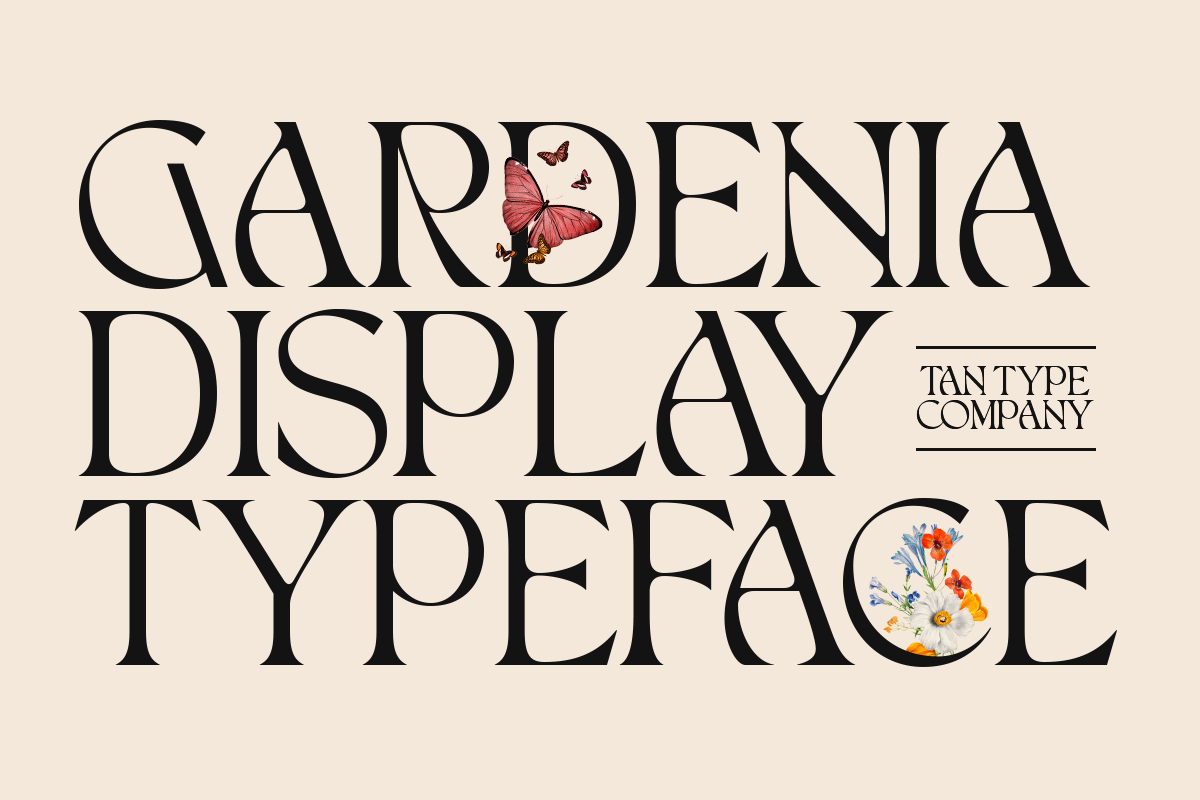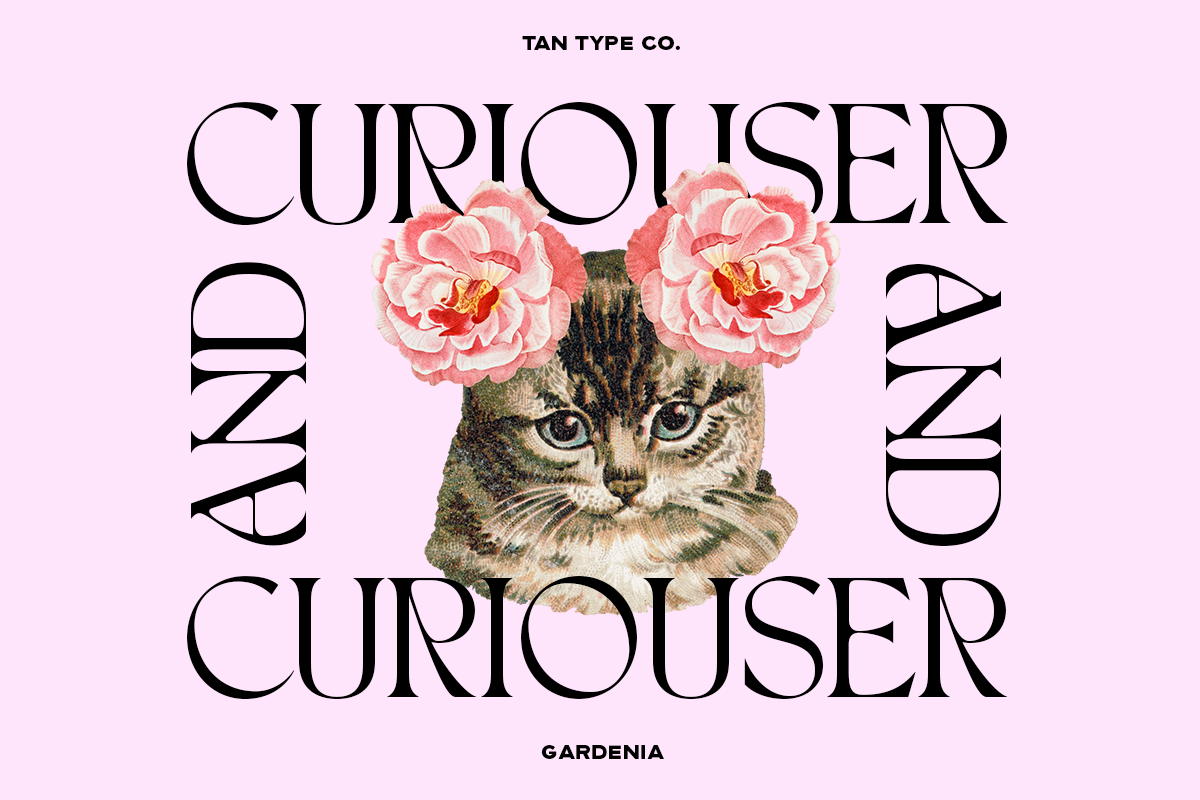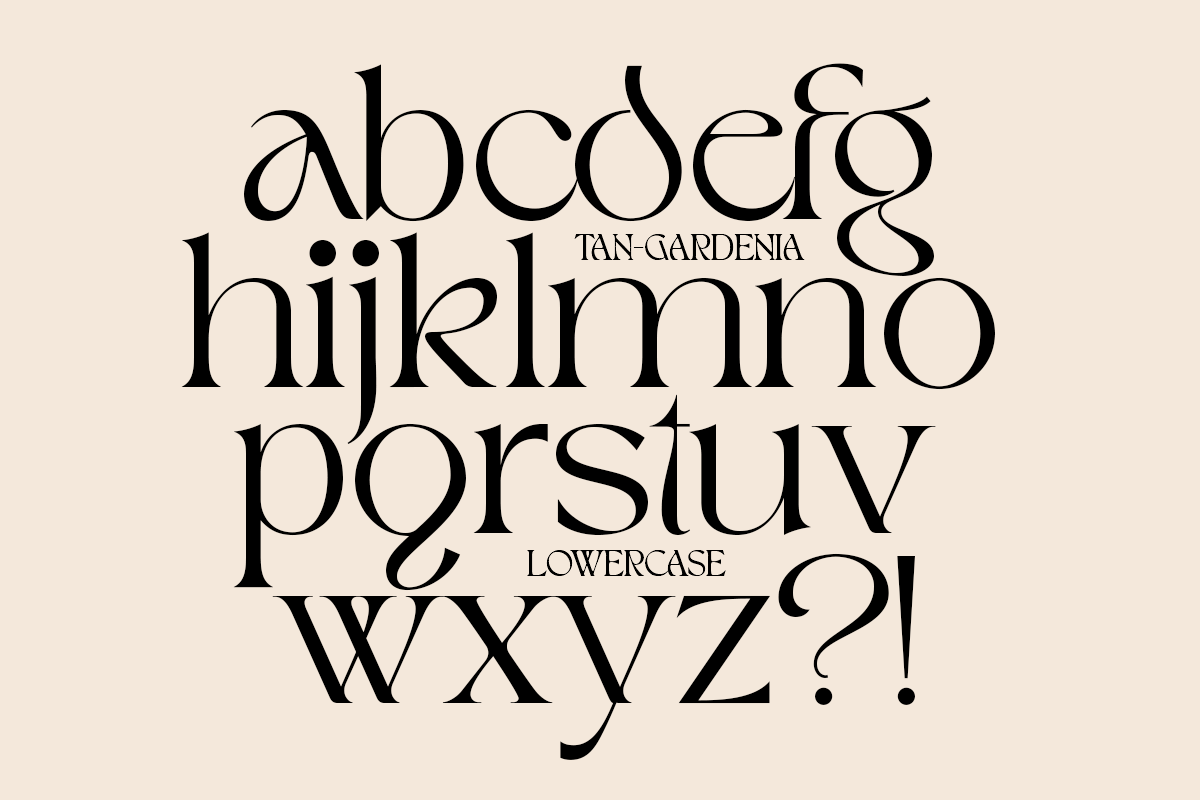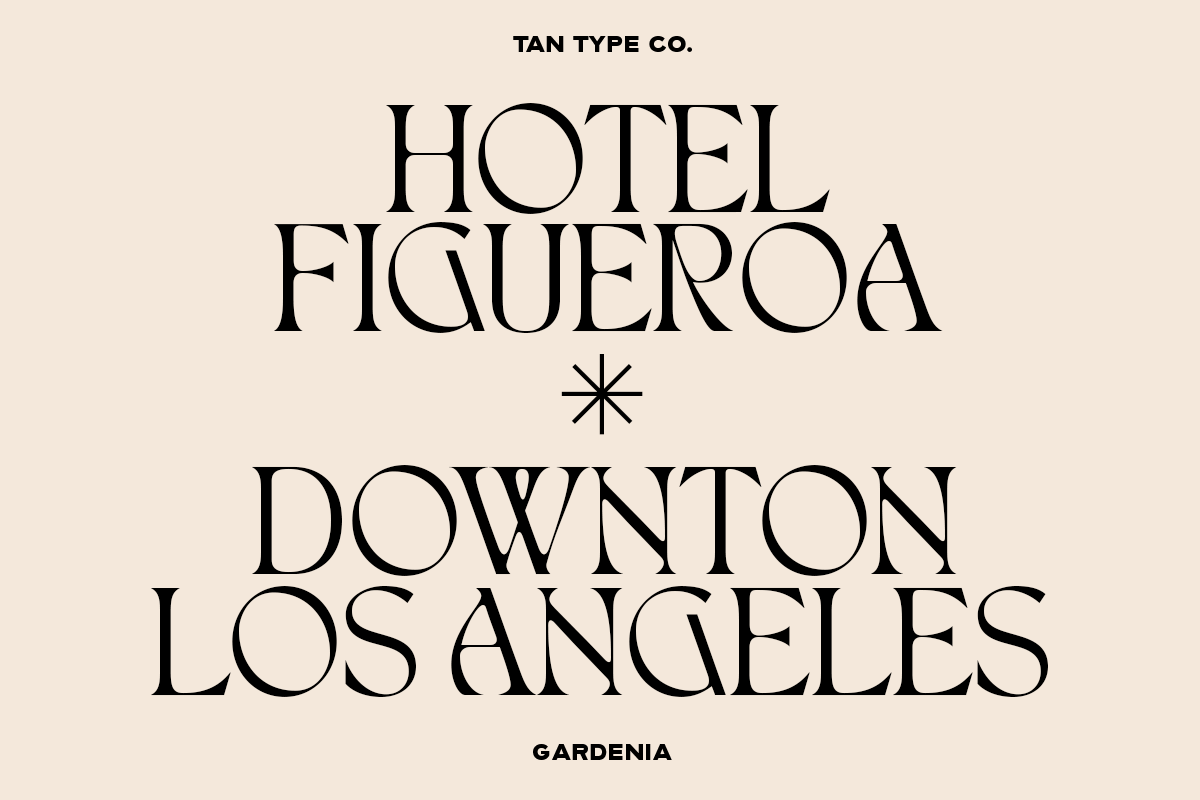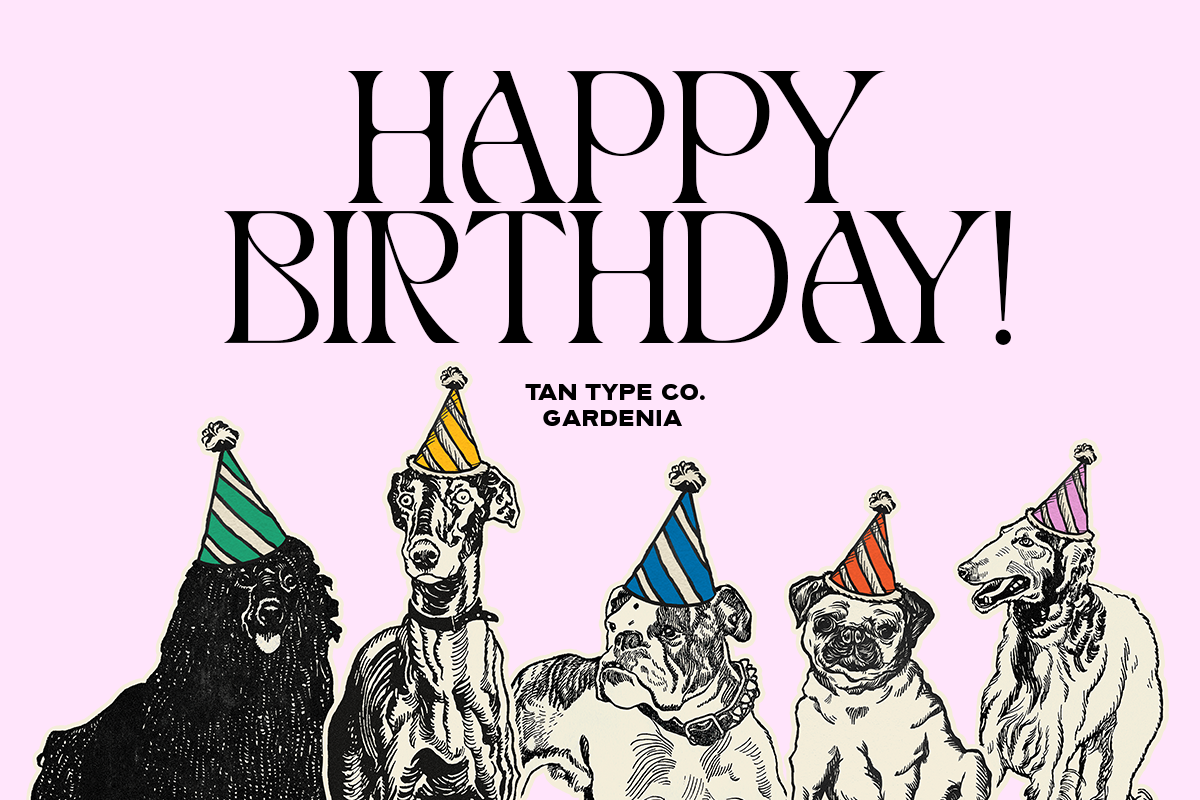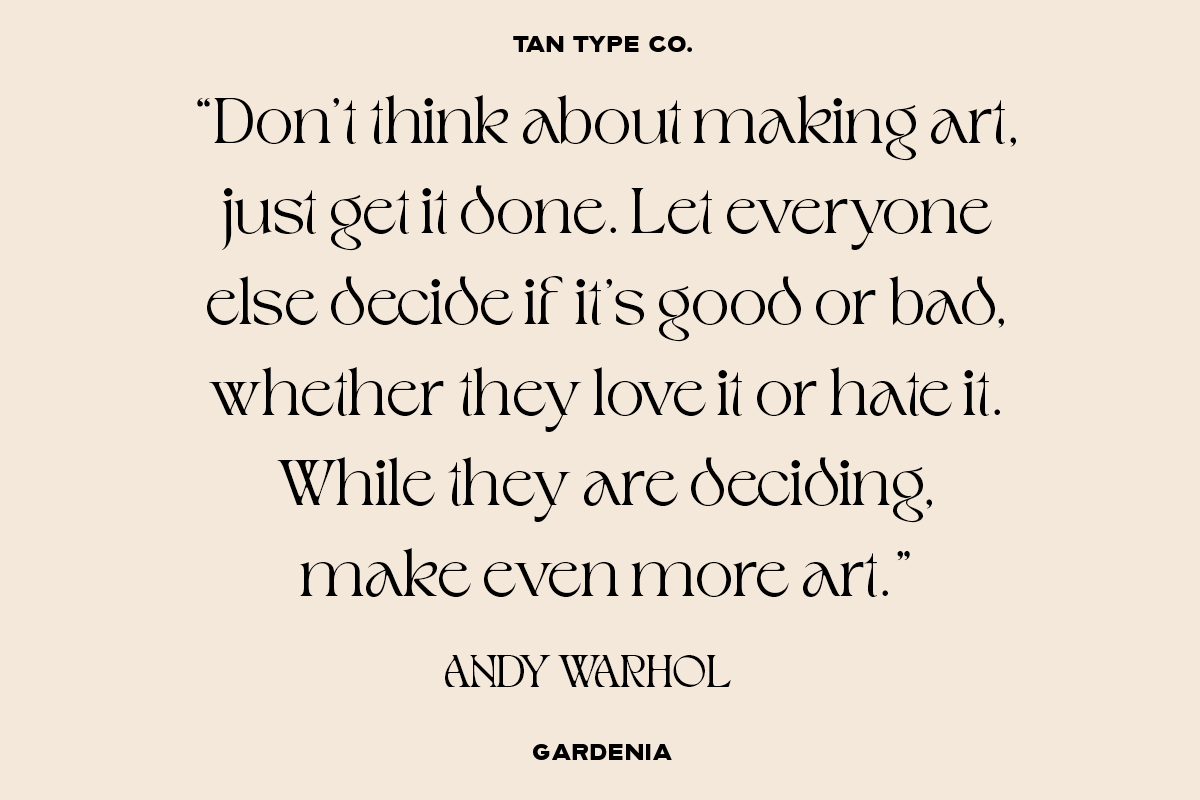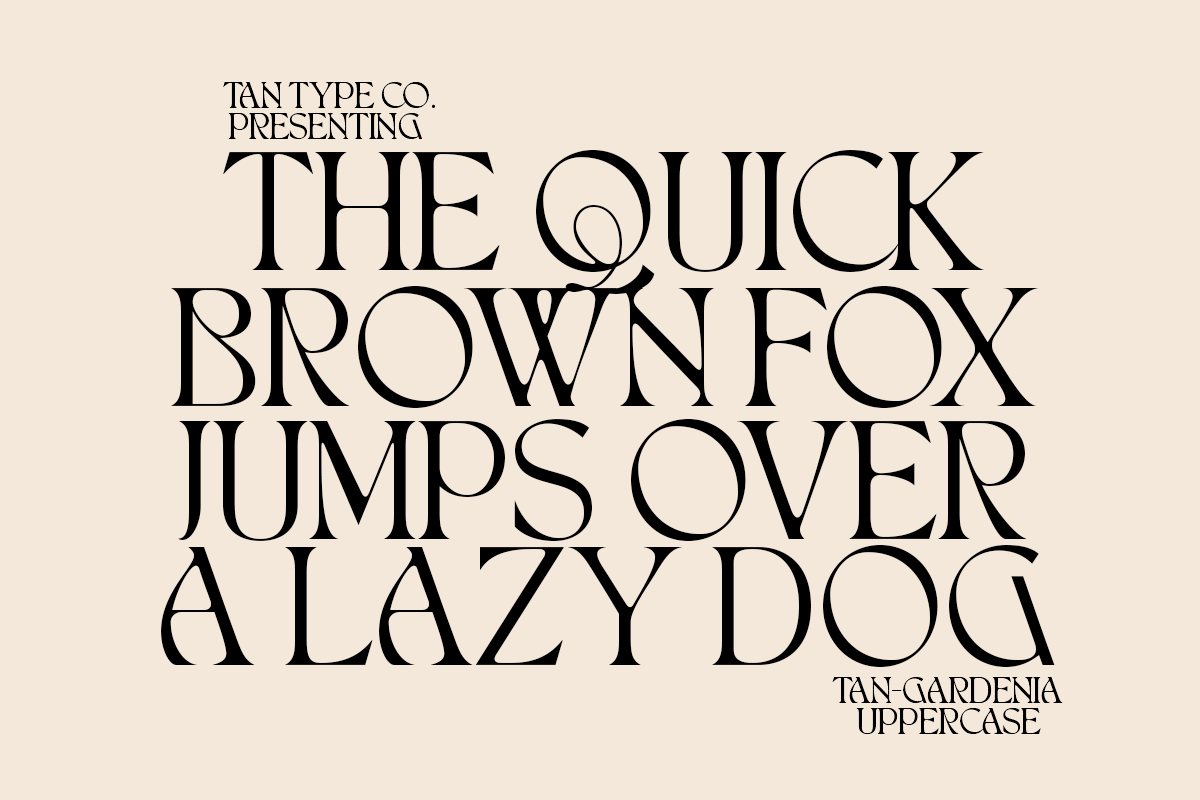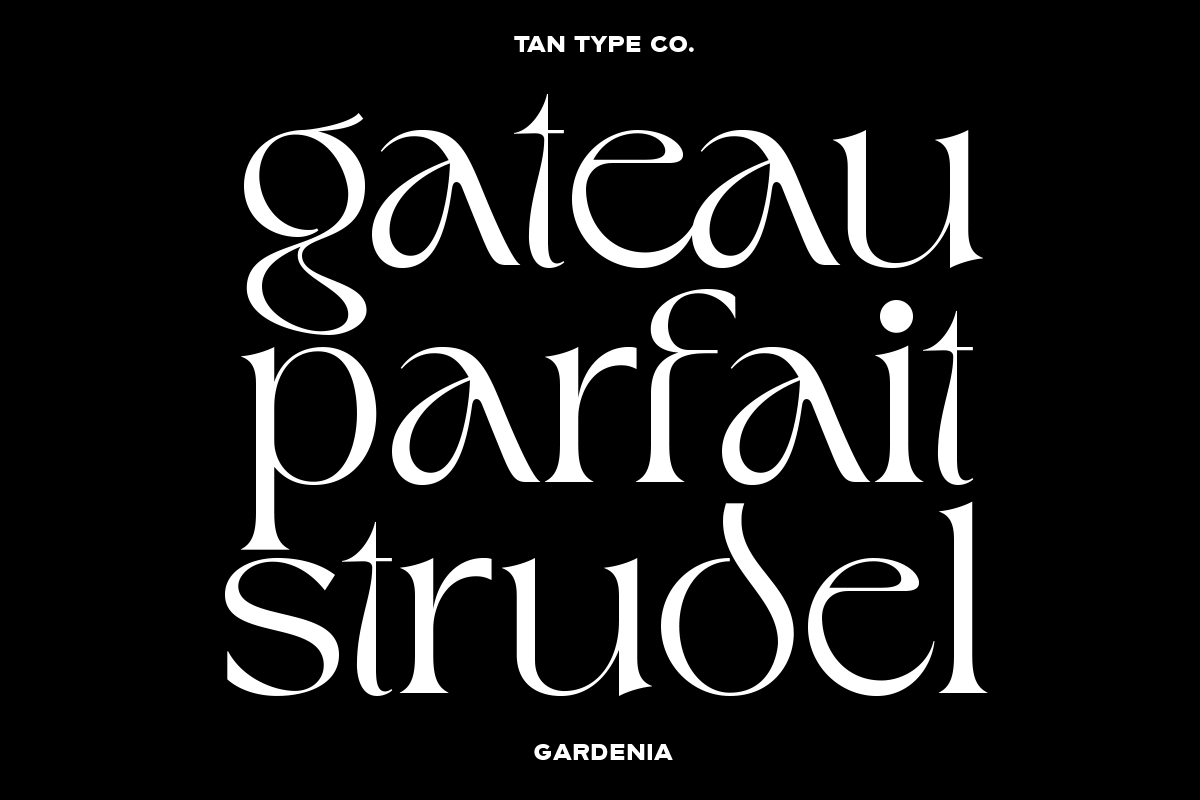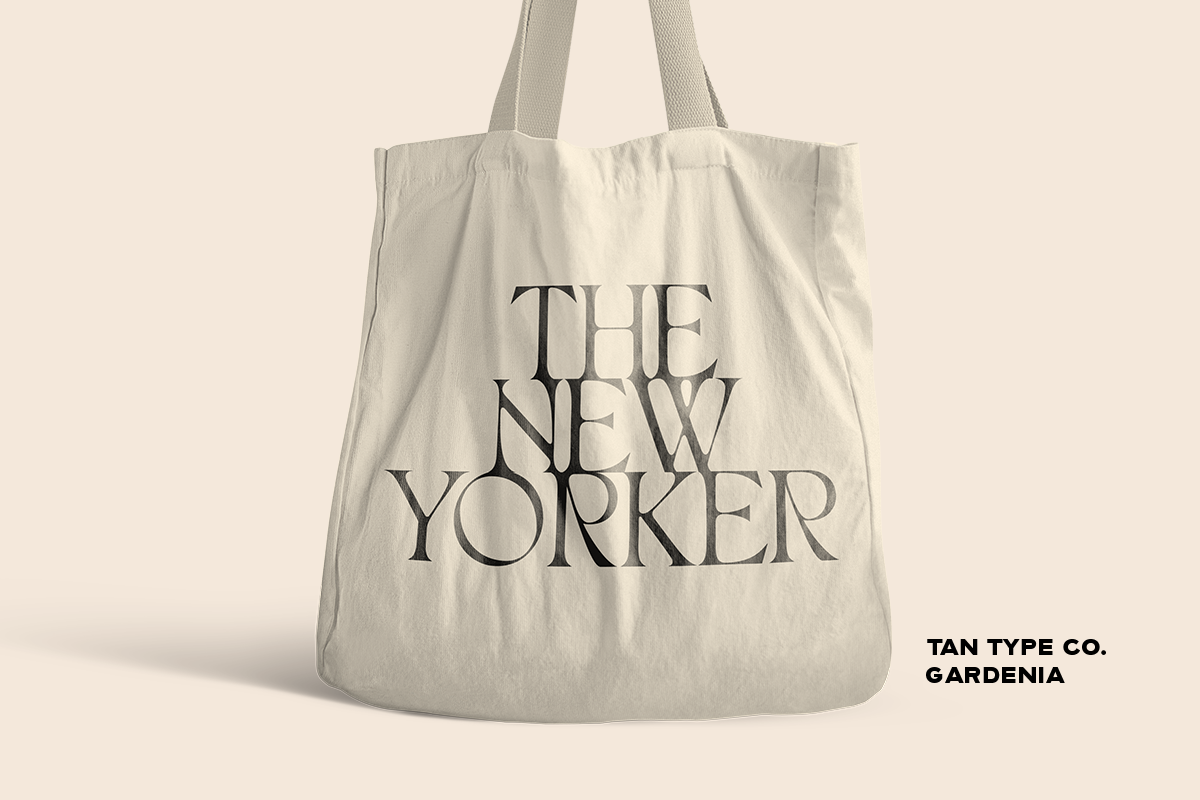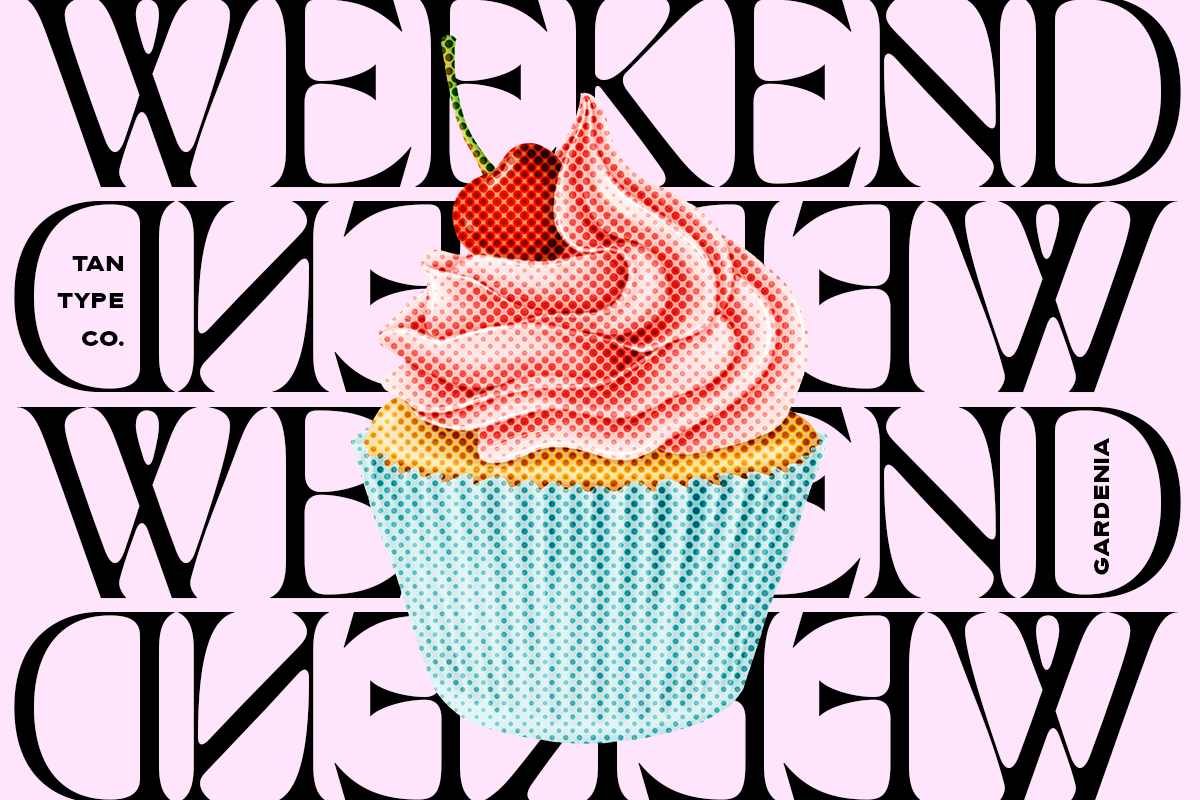
GARDENIA is a romantic and refined display serif typeface with elegant contrast and delicate curves. Its sculpted letterforms blend classic charm with modern sophistication, creating a graceful rhythm that feels both timeless and expressive.